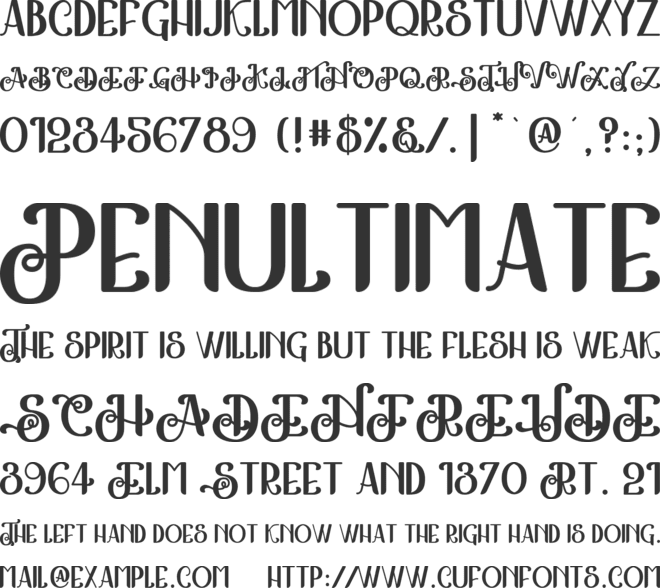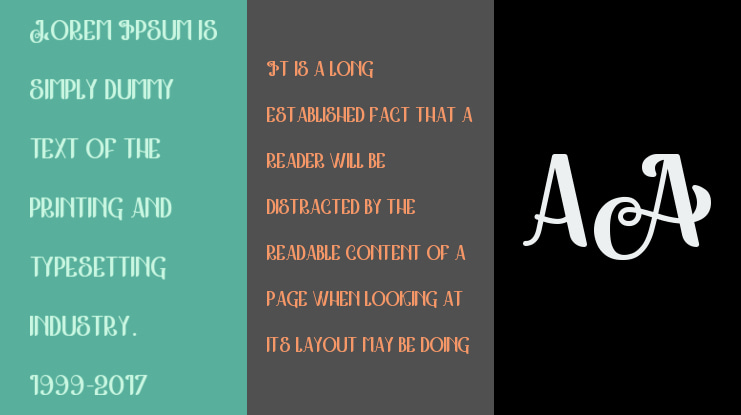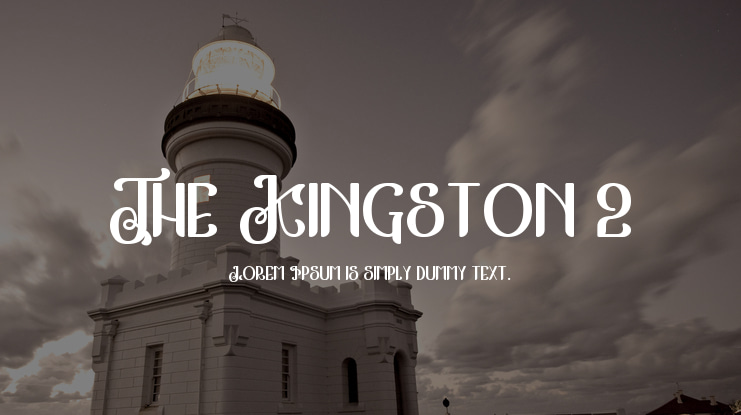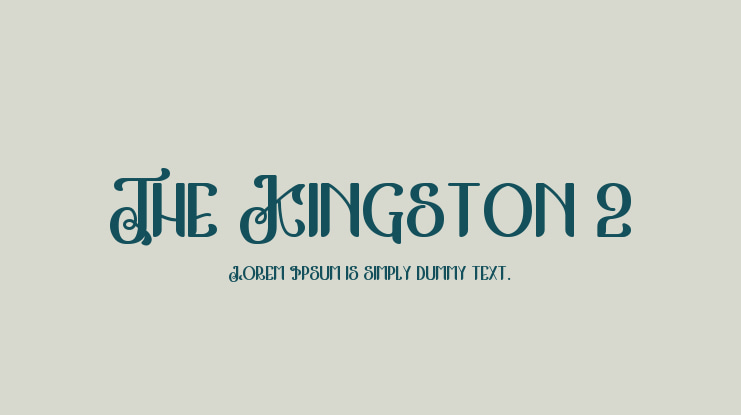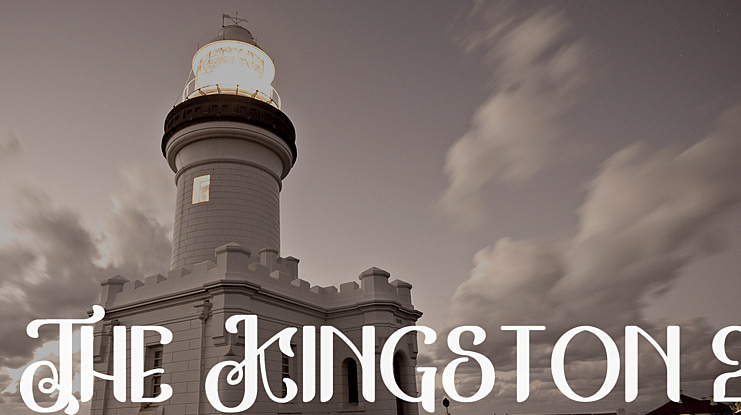
The Kingston 2 Font Family
The Kingston font with new and modern styles. A collection of letters and numbers suitable your projects also great for Logotype, Branding Design, Logo Design, Digital Lettering Arts, T-Shirt/Apparel, Poster, Magazine, Signs, Wedding Invitation, Birthday Invitation, Advertising Design, and any design needs.